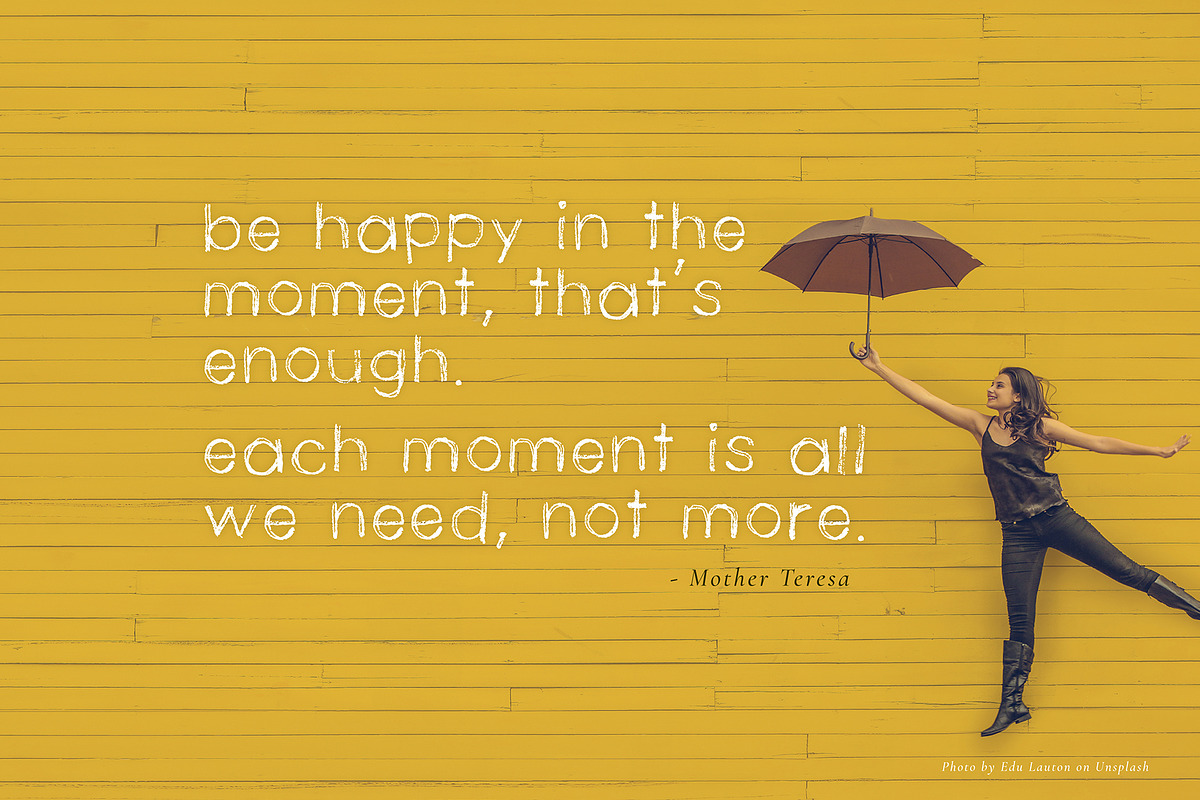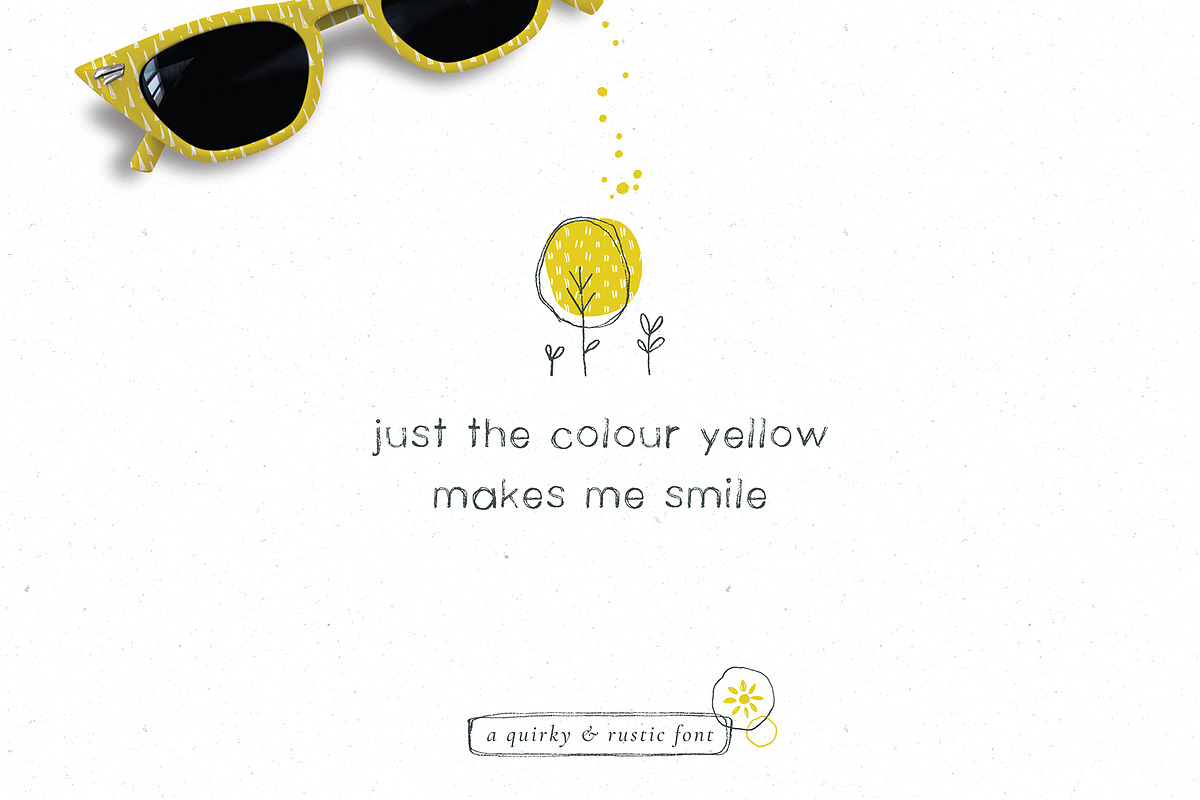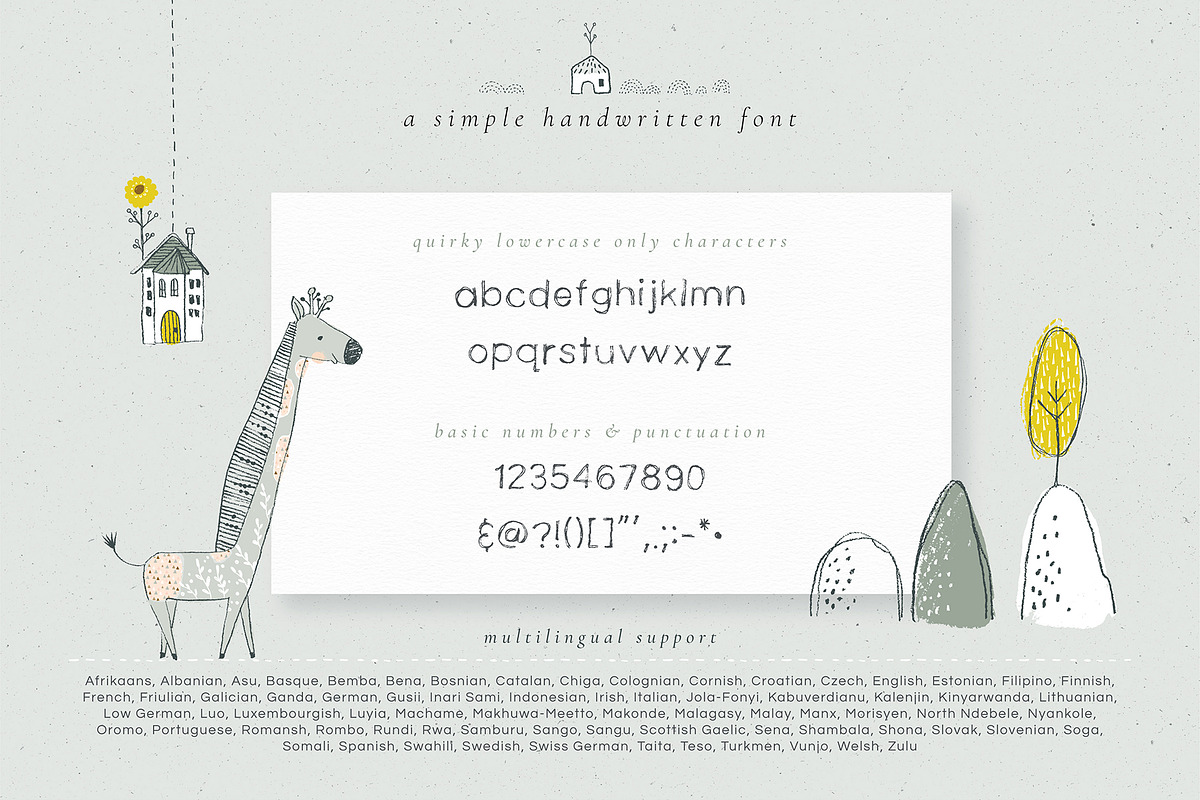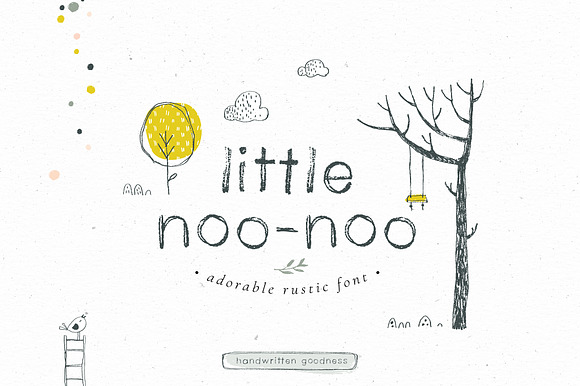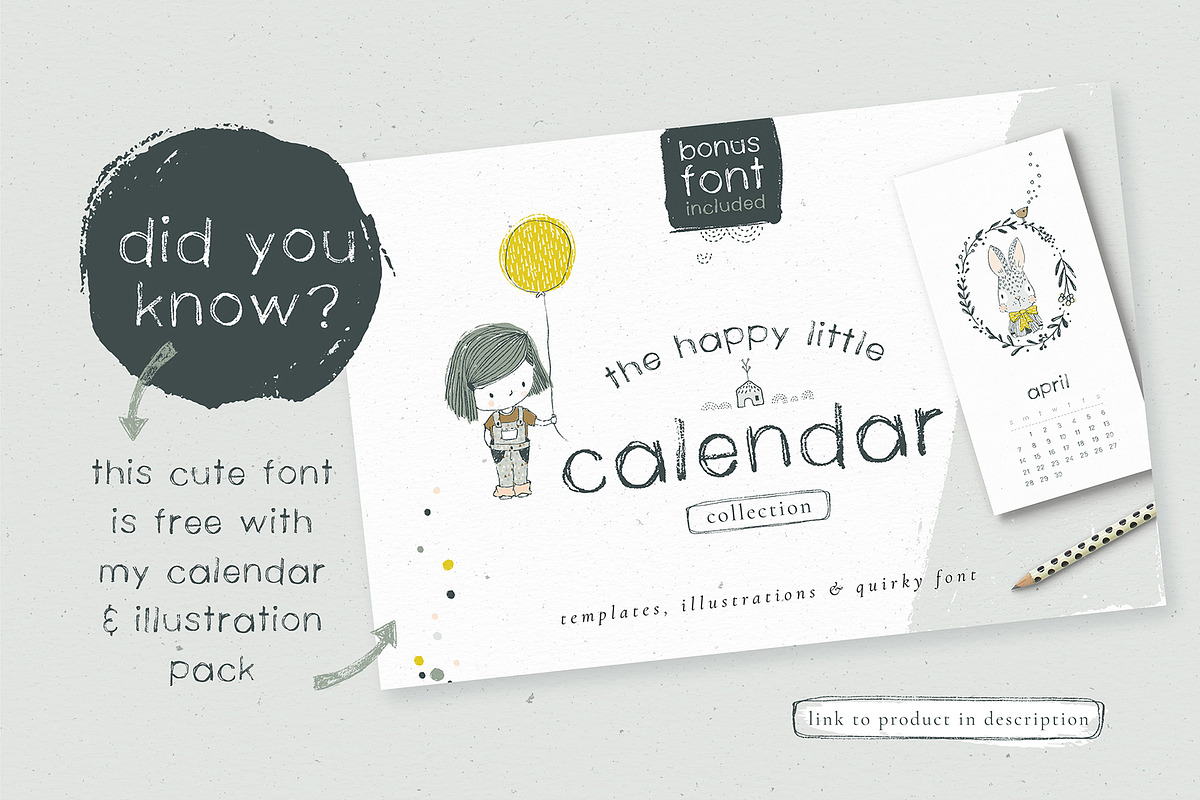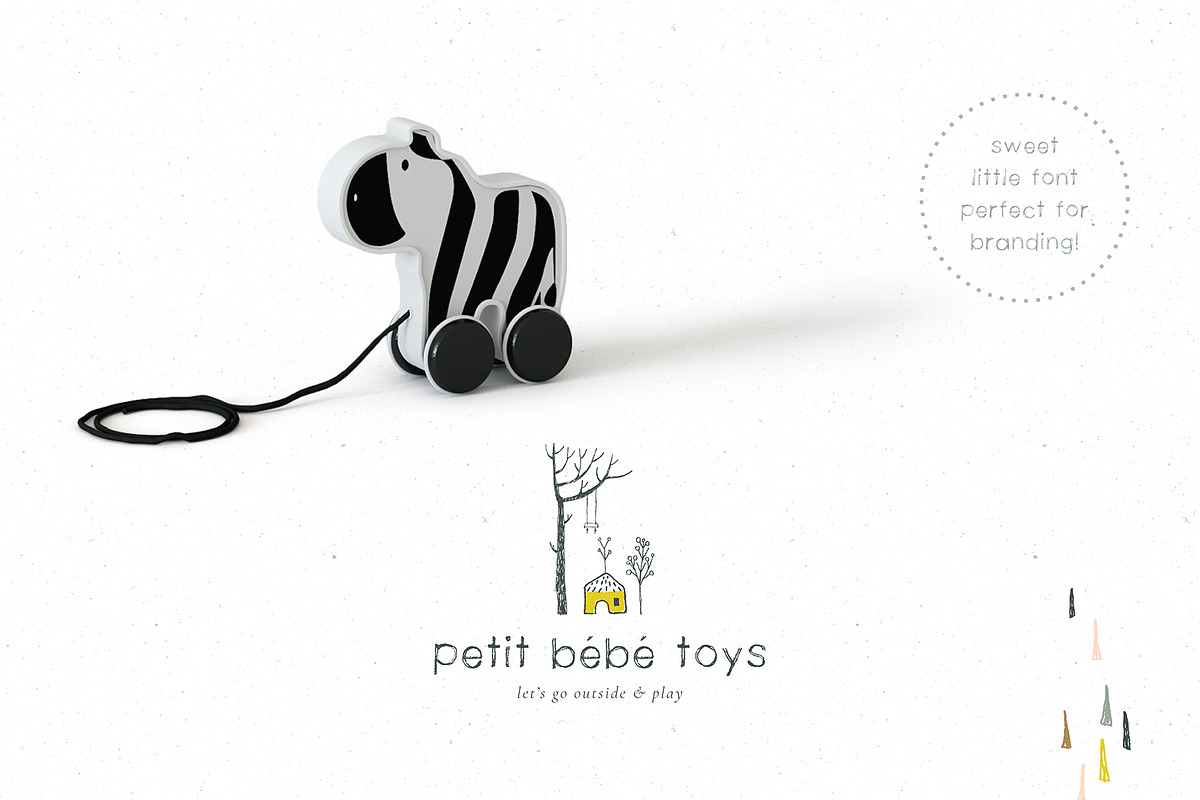
Little Noo-Noo rustic font
This is Little Noo-Noo, an adorable hand sketched font bursting with rustic cuteness!
A lovely lowercase san serif font perfect for nursery wall art, branding projects, children's books, and all things whimsy!